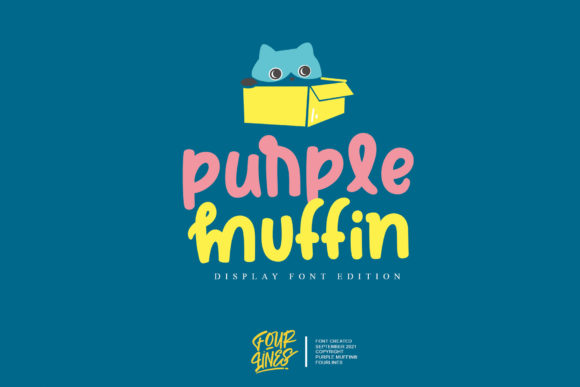
Welcome to the world of Purple Muffin, where charm meets elegance. This captivating display font from Fourlines.design is more than just a collection of letters and characters; it's an expression of your inner creativity, waiting to be unleashed. With Purple Muffin, you'll embark on a typographic journey that is both playful and sophisticated, trendy and timeless.
With its delightful curves and cheerful demeanor, Purple Muffin is the perfect font for adding a touch of whimsy to your designs. Whether you're crafting personal invitations, designing eye-catching posters, creating unique logos, or crafting heartwarming greeting cards, this versatile font will transform your words into charming works of art.
Imagine the joy of seeing your dog's name come to life in the playful strokes of Purple Muffin. It's the perfect font to capture the spirit of your furry friend, adding a touch of personalization to any project. From dog-themed merchandise to heartwarming photo albums, Purple Muffin will make your designs wag with delight.
But Purple Muffin's charm extends far beyond the world of canines. Its versatility shines in any setting, whether you're creating presentations that demand attention, designing digital content that pops, or crafting handmade cards that warm hearts. Its adaptability makes it a go-to font for any occasion, ready to elevate your designs with its unique style.
With Purple Muffin by your side, you'll discover a font that becomes more than just a tool; it becomes your creative companion. Its playful personality will inspire you to think outside the box, to explore new design possibilities, and to create projects that resonate with your audience.
So why settle for ordinary when you can embrace the extraordinary? Purple Muffin is waiting to transform your designs into something truly special. Let your creativity run wild, let your imagination soar, and let Purple Muffin guide you on a typographic adventure that will leave your audience spellbound.